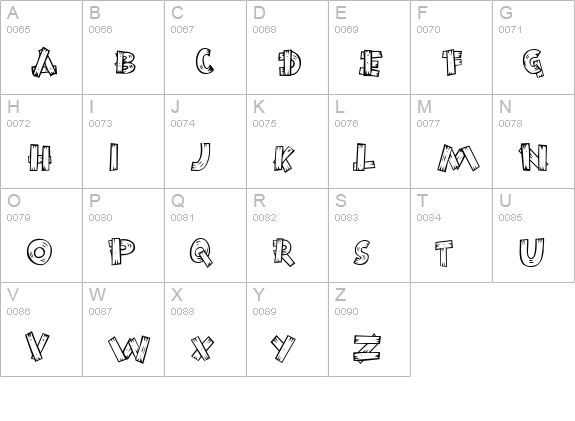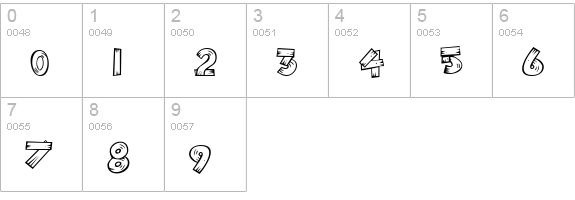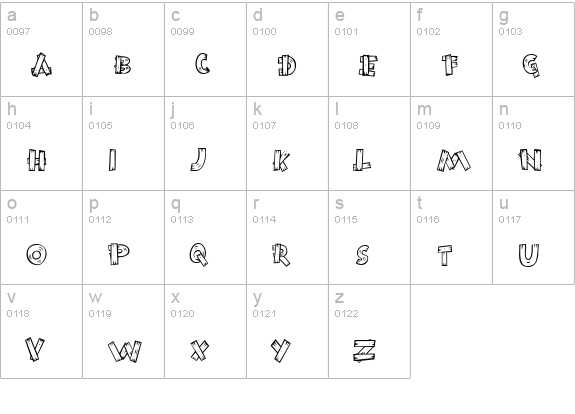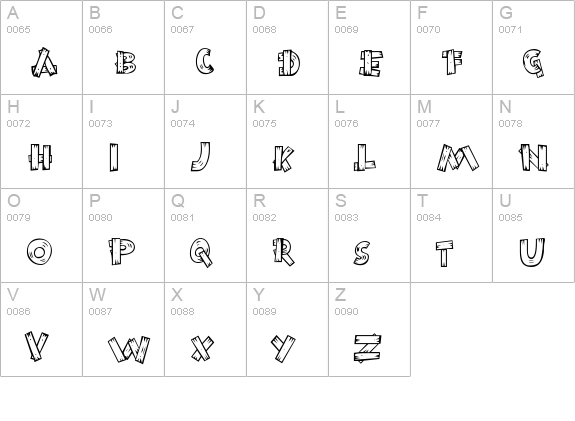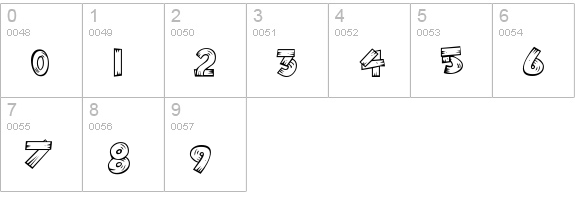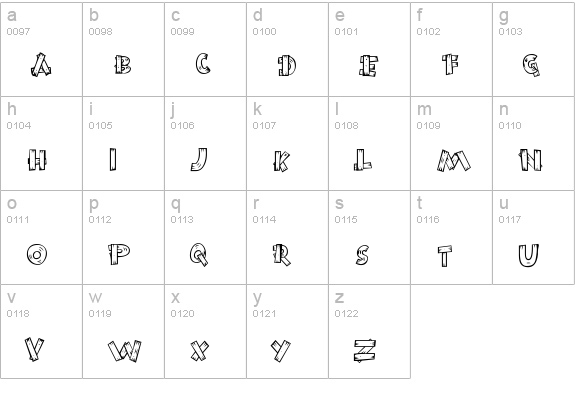
Burnstown Dam Font Details
Burnstown Dam font is a unique and creative typeface that exudes a rustic and handcrafted charm. With its rough edges and bold strokes, this font is perfect for projects that require a touch of vintage or industrial aesthetic. The distressed appearance gives Burnstown Dam a raw and authentic feel, making it stand out in any design. This versatile font is ideal for a wide range of applications, such as logos, posters, signage, and more. Its bold and rugged look makes it perfect for projects that need to make a statement or evoke a sense of nostalgia. But the best part? Burnstown Dam font is completely free to download at FontsMarket.com. So you can add this striking typeface to your collection without breaking the bank. Don't miss out on the opportunity to enhance your designs with the unique character of Burnstown Dam font.